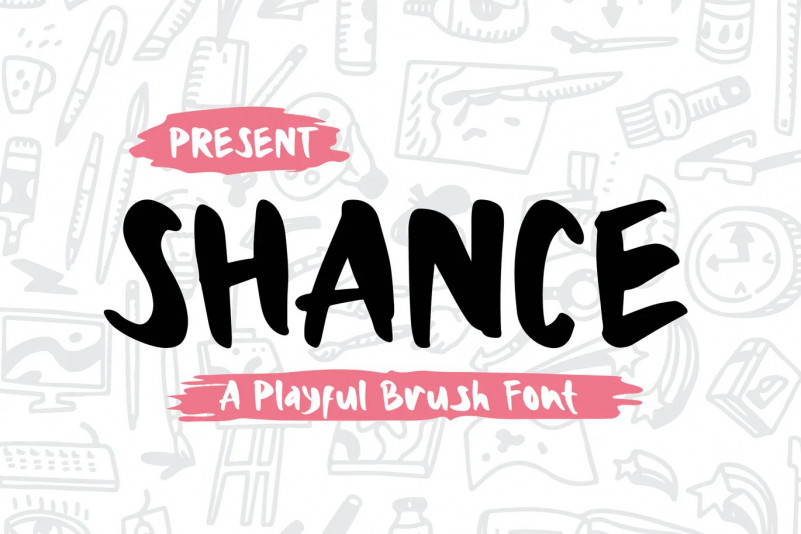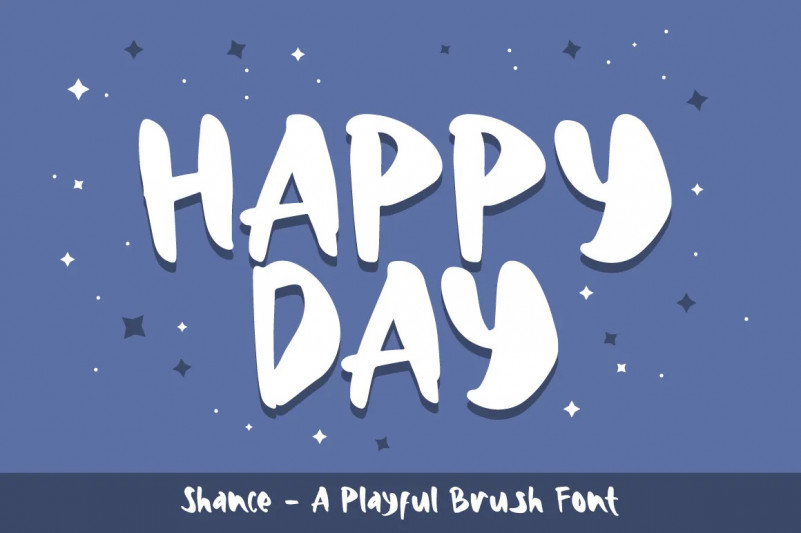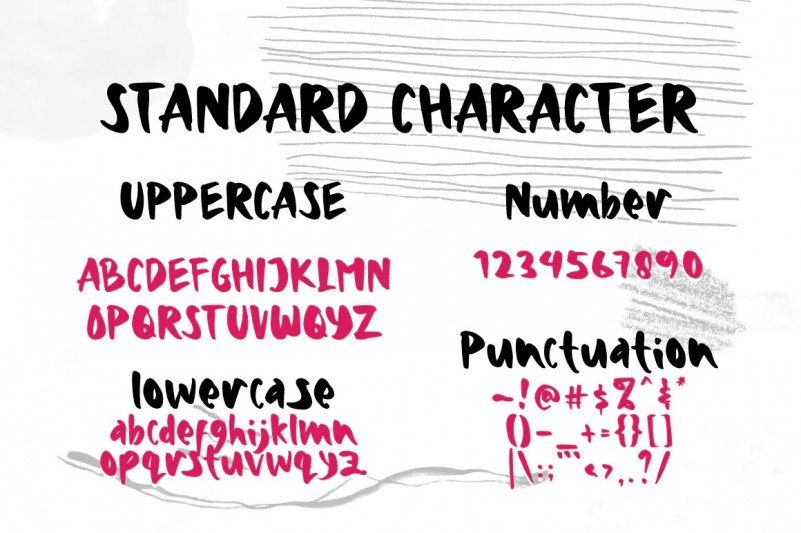
Shance Font
Shance – A Playful Brush Font
So beautiful on invitation like greeting cards, branding materials, business cards, quotes, posters, and more!